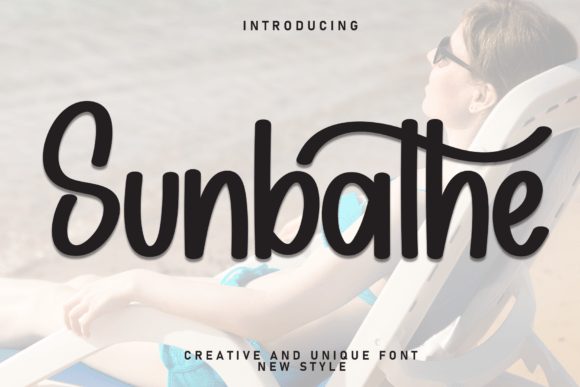
Sunbathe Font: Elevate Your Designs with a Charming Script Handwritten Font
In the world of typography, fonts play a crucial role in conveying the tone and personality of a brand or design. When it comes to creating elegant and personal designs, a charming script handwritten font can make all the difference. Introducing Sunbathe Font, a beautiful and versatile typeface that brings a touch of sophistication and whimsy to your creative projects.
What is Sunbathe Font?
Sunbathe Font is a charming script handwritten font that is designed to add a personal and elegant touch to your designs. With its smooth curves, natural flow, and slightly casual style, this font feels like it was written with care, making it perfect for a variety of creative applications.
Key Features of Sunbathe Font
So, what makes Sunbathe Font so special? Here are some of its key features:
- Smooth Curves: Sunbathe Font boasts smooth, flowing curves that give it a natural and elegant feel.
- Natural Flow: The font’s natural flow makes it easy to read and understand, even at smaller sizes.
- Slightly Casual Style: Sunbathe Font has a slightly casual style that gives it a friendly and approachable feel.
- Versatility: This font is incredibly versatile and can be used in both romantic and modern aesthetics.
Use Cases for Sunbathe Font
Sunbathe Font is perfect for a variety of creative projects, including:
- Wedding Invitations: Add a touch of elegance and romance to your wedding invitations with Sunbathe Font.
- Personal Branding: Use Sunbathe Font to create a personal and sophisticated brand identity.
- Greeting Cards: Add a personal touch to your greeting cards with this beautiful script handwritten font.
- Lifestyle Blog Graphics: Elevate your lifestyle blog graphics with Sunbathe Font’s elegant and modern aesthetic.
Why Choose Sunbathe Font?
So, why should you choose Sunbathe Font for your creative projects? Here are just a few reasons:
- Unique and Eye-Catching: Sunbathe Font is a unique and eye-catching typeface that will set your designs apart from the crowd.
- Elegant and Sophisticated: This font exudes elegance and sophistication, making it perfect for high-end designs.
- Easy to Read: Sunbathe Font is easy to read, even at smaller sizes, making it perfect for body text and captions.
- Versatile: This font is incredibly versatile and can be used in a variety of creative applications.
Tips for Using Sunbathe Font
Here are a few tips for using Sunbathe Font in your creative projects:
- Pair with a Sans-Serif Font: Pair Sunbathe Font with a sans-serif font for a modern and elegant look.
- Use for Headings and Titles: Use Sunbathe Font for headings and titles to add a touch of elegance and sophistication.
- Experiment with Colors: Experiment with different colors and textures to add depth and interest to your designs.
In conclusion, Sunbathe Font is a charming script handwritten font that brings a personal and elegant touch to your designs. With its smooth curves, natural flow, and slightly casual style, this font is perfect for a variety of creative applications, from wedding invitations to lifestyle blog graphics. Its versatility and elegance make it an excellent choice for designers looking to add a touch of sophistication to their work.
- Is Sunbathe Font suitable for body text? While Sunbathe Font is beautiful for headings and titles, it’s recommended to use a sans-serif font for body text.